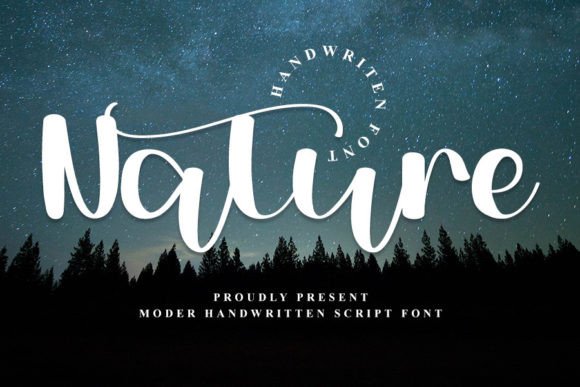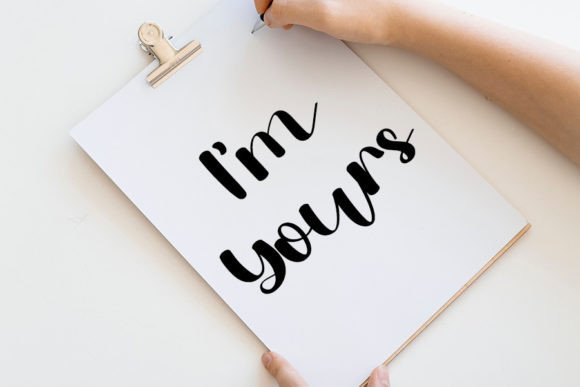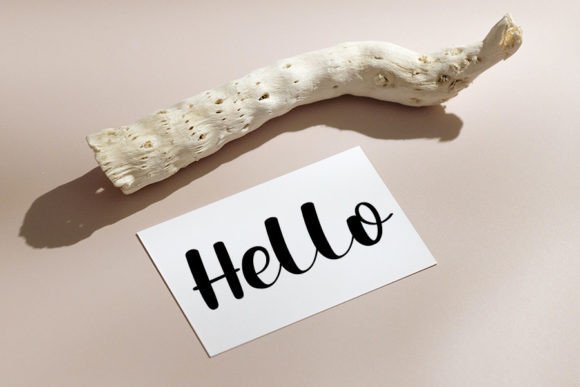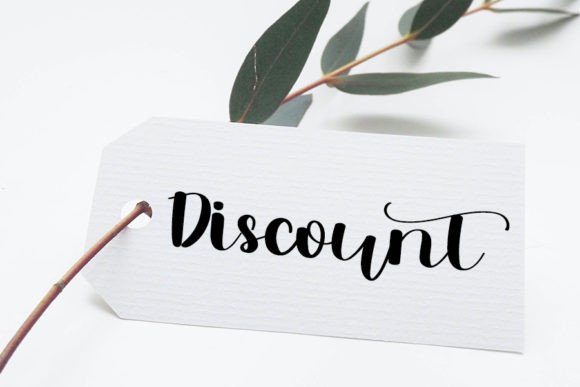
About Nature Font
Naturefont offers a neat and beautiful handwritten style that adds an elegant touch to any creative project. Its distinct and timeless design makes it an excellent choice for those looking to create memorable and refined visuals. Whether you’re working on branding, invitations, or digital content, Naturefont elevates your work with a subtle sophistication.
Elegant Handwriting for Versatile Use
Naturefont captures the essence of natural handwriting with smooth strokes and balanced characters. This elegant touch fits perfectly with a wide variety of design needs, including wedding invitations, social media posts, packaging, and more. Its versatility ensures it complements both formal and casual projects effortlessly.
Distinct and Timeless Style
One of the key strengths of Naturefont is its distinct style that feels both modern and timeless. This makes it a valuable asset for designers who want to craft projects that stand the test of time. The font’s readability and aesthetic appeal ensure that it looks great across various mediums and sizes.
Ideal for Your Favorite Projects
Whether you are creating logos, greeting cards, or posters, Naturefont adds an authentic, handwritten feel that enhances your design’s personality. It helps you communicate warmth and creativity, making your projects stand out.
Why Choose Nature Font?
Naturefont combines elegance and functionality in a beautiful handwritten typeface. Its timeless style, versatility, and clear readability make it a must-have for any designer’s collection. Use Naturefont to bring a natural, stylish flair to your next design project and watch your ideas come to life.